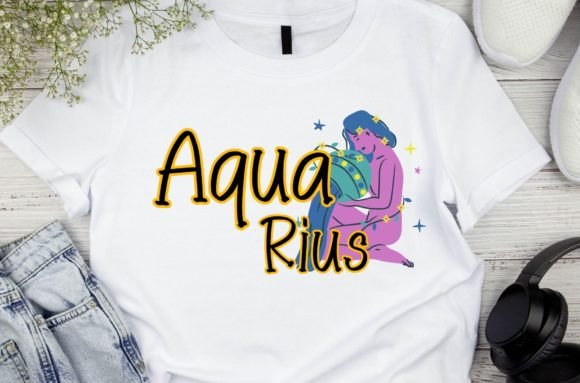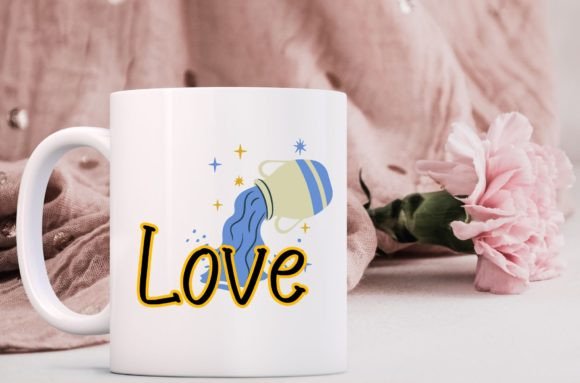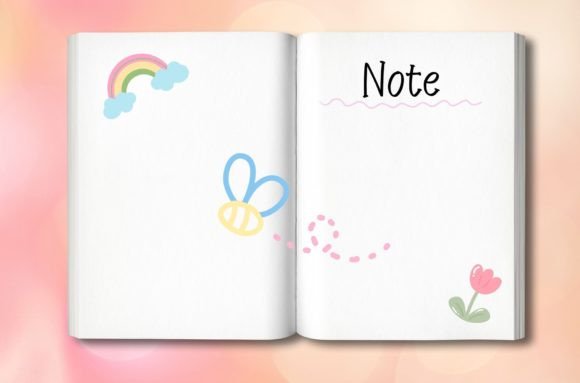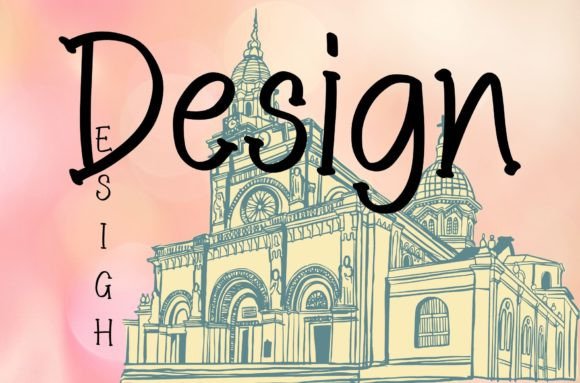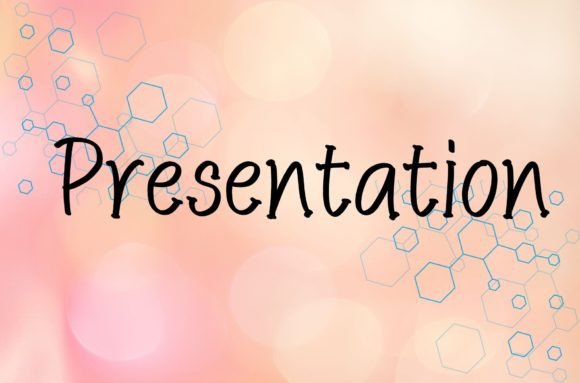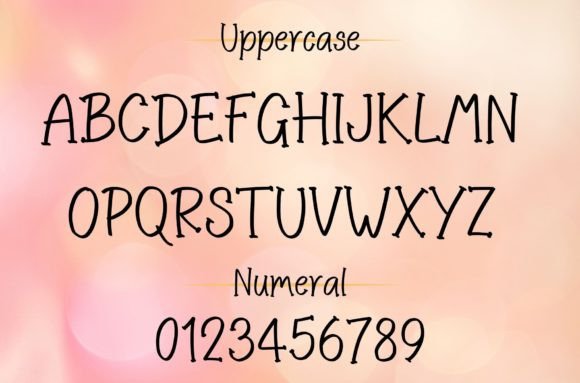
The Perfect Cozy Companion: A Deep Dive into Catnap Hand Font
Have you ever been in the middle of a design project, and suddenly, you’re stuck on finding the right font? I recall a particularly frustrating moment when a client asked for a ‘casual yet personal touch’ for their branding. As I scoured through font libraries, I stumbled upon Catnap Hand – a playful and relaxed handwritten font that instantly resonated with my design needs. In this article, we’ll explore what makes Catnap Hand a fantastic addition to your design toolkit.
An Honest Review of Catnap Hand
What I Love About Catnap Hand ✨
• ✅ Smooth, flowing letters that exude a casual and friendly vibe
• ✅ Easy to read, making it perfect for body text or captions
• ✅ Adds a personal, warm touch to projects – ideal for branding, packaging, or stationery
• ✅ Highly versatile and adaptable to various design contexts
• ⚠️ Limited character set compared to more extensive font libraries
• ⚠️ May not be the best fit for very formal or corporate designs
The Story Behind Catnap Hand
Catnap Hand was designed with the intention of capturing the feeling of quickly jotting down a note or message. The creator aimed to craft a font that felt approachable, friendly, and cozy – perfect for everyday use. While the exact backstory might be unknown, it’s clear that Catnap Hand has become a beloved font among designers and crafters.
Q: What type of projects is Catnap Hand best suited for?
A: Catnap Hand is ideal for projects that require a personal, warm touch, such as branding, packaging, stationery, or social media graphics.
Q: Does Catnap Hand support OpenType features?
A: Yes, Catnap Hand supports OpenType features, including stylistic alternates, ligatures, and glyphs.